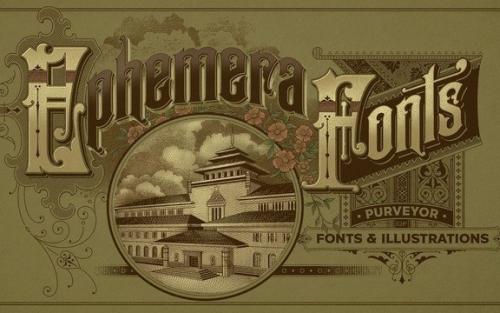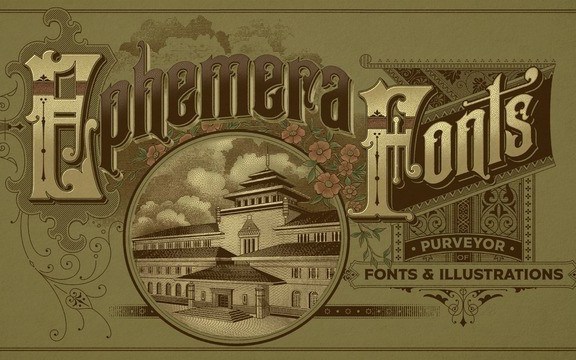
Ephemera Sickles Serif Font
Ephemera Sickles Serif Font is a debut from the most anticipated vintage digital typefoundry by Gilang Purnama and Ilham Herry, who stucked their mind, body and soul back into the first era of 18th century.
They build this intense visual-time machine that no one capable before. Started by the visual branding of the Ephemera Fonts, they bring every letters of it to the another level of journey. They called it Ephemera Sickles.